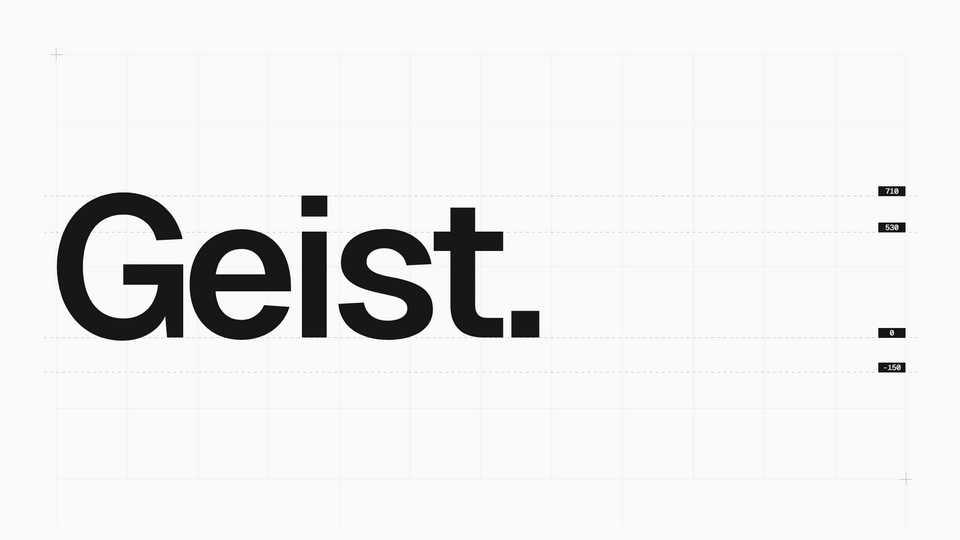
Download Geist Sans font, a sans-serif typeface designed for legibility and simplicity. Geist is a modern, geometric typeface that is based on the principles of classic Swiss typography.
Designer: Vercel